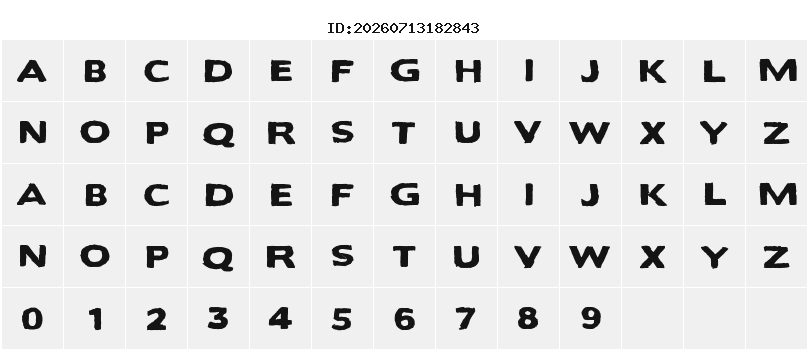
• Font Name: Bactosaurus
• Full Font Name: Bactosaurus
Bactosaurus.ttf is a modern, elegant sans-serif font designed for ultimate readability and visual harmony. Perfect for branding, headlines, web design, and print materials.